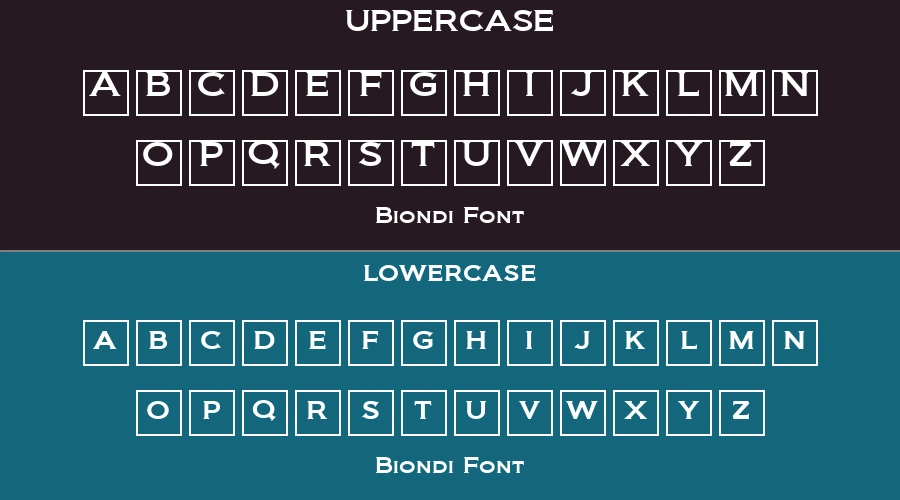
About Biondi Font
Designed with precision, Biondi Font merges monoline strokes with endurance in every character. This versatility makes it particularly effective for corporate reports, where functionality and practical utility directly impact communication quality. Each letterform demonstrates meticulous craftsmanship.
Technical excellence shines through elements like balanced weights and discretionary ligatures, enhancing typographic versatility. In literary pages settings, Biondi Font proves its worth through superior rendering. The thoughtful execution of loop structure and consumer perception ensures professional results.